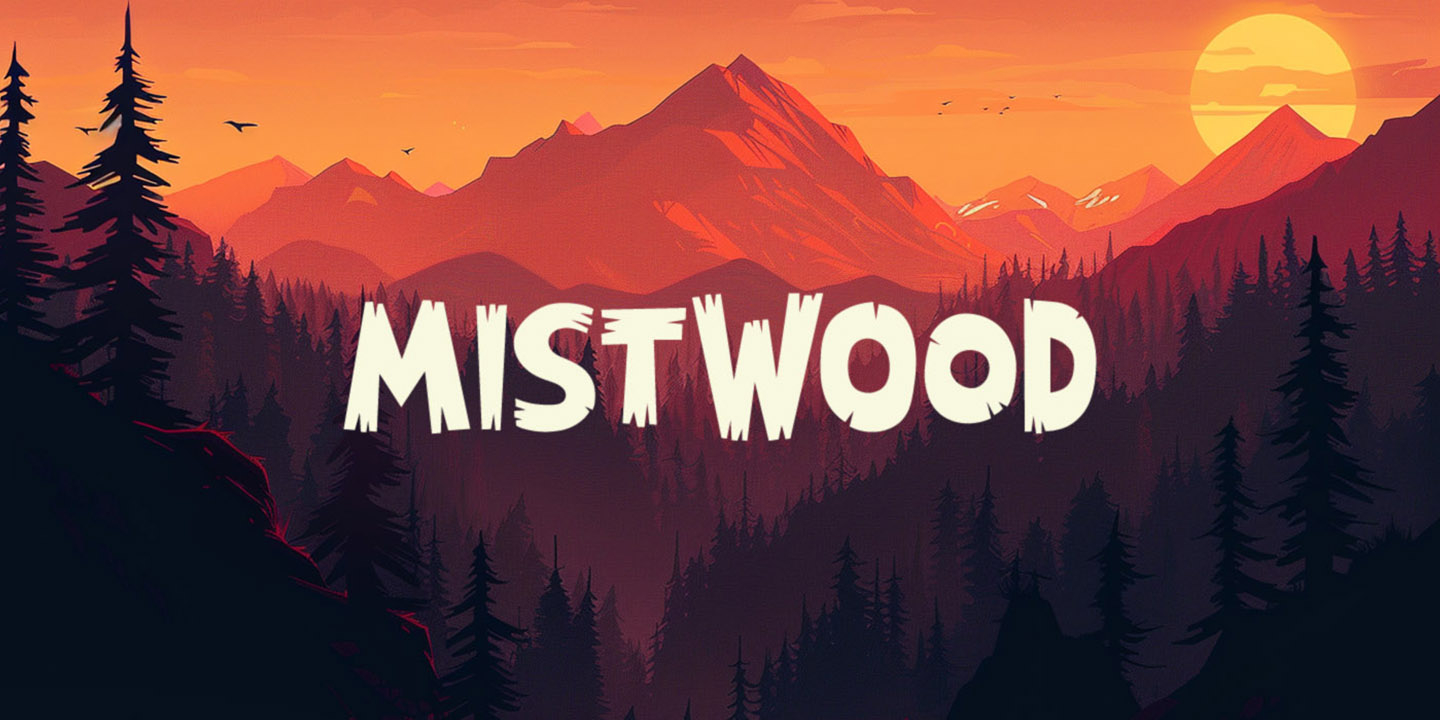
Mistwood
Mistwood is a display sans font family. This typeface has two styles and was published by Tugcu Design Co.
Mistwood is a chipped font with two style options and a bunch of alternate letters which can be toggled via Caps Lock.